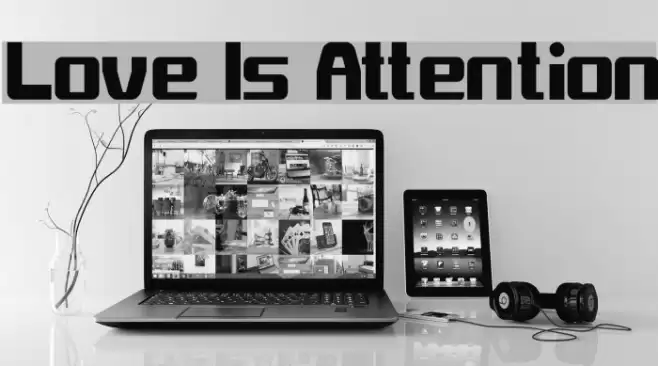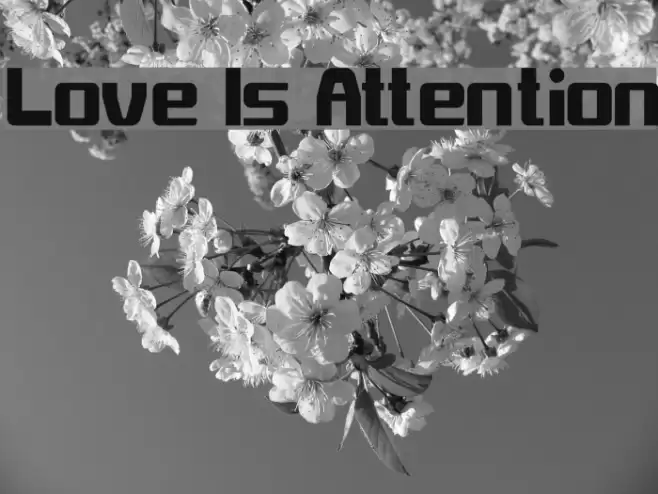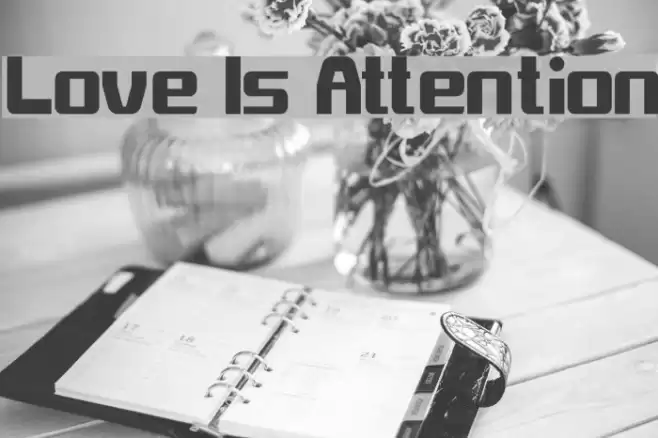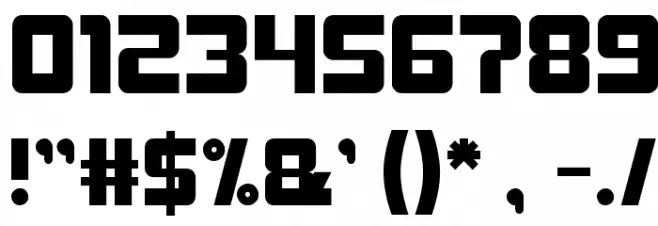
Love Is Attention Font
Love Is Attention Description
This font features a bold and geometric design with a modern touch. The characters are blocky and have a strong presence, making them ideal for attention-grabbing headlines and titles. The uppercase letters are uniform in height, while the lowercase letters maintain a consistent style with slightly rounded edges, adding a subtle softness to the overall look. The numerals are equally bold and clear, ensuring readability. Special characters are well-integrated, maintaining the font's cohesive style. The font's design is both functional and stylish, suitable for various creative projects.
A bold, geometric font with a modern and attention-grabbing style from Uncategorized fonts.
- Proposed Projects: Ideal for headlines, posters, branding, and advertising materials.